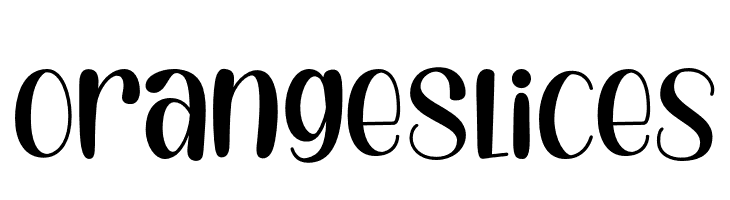
A playful and whimsical font with bold and thin strokes, perfect for creative projects.
A playful, citrus-themed decorative font with bold, rounded characters.
A bold, rounded font with a playful and dynamic style.
A playful, handwritten font with tall, narrow letters and a casual style.
A playful, handwritten font with smooth, flowing lines and a whimsical style.
A playful, handwritten font with a casual and friendly vibe.